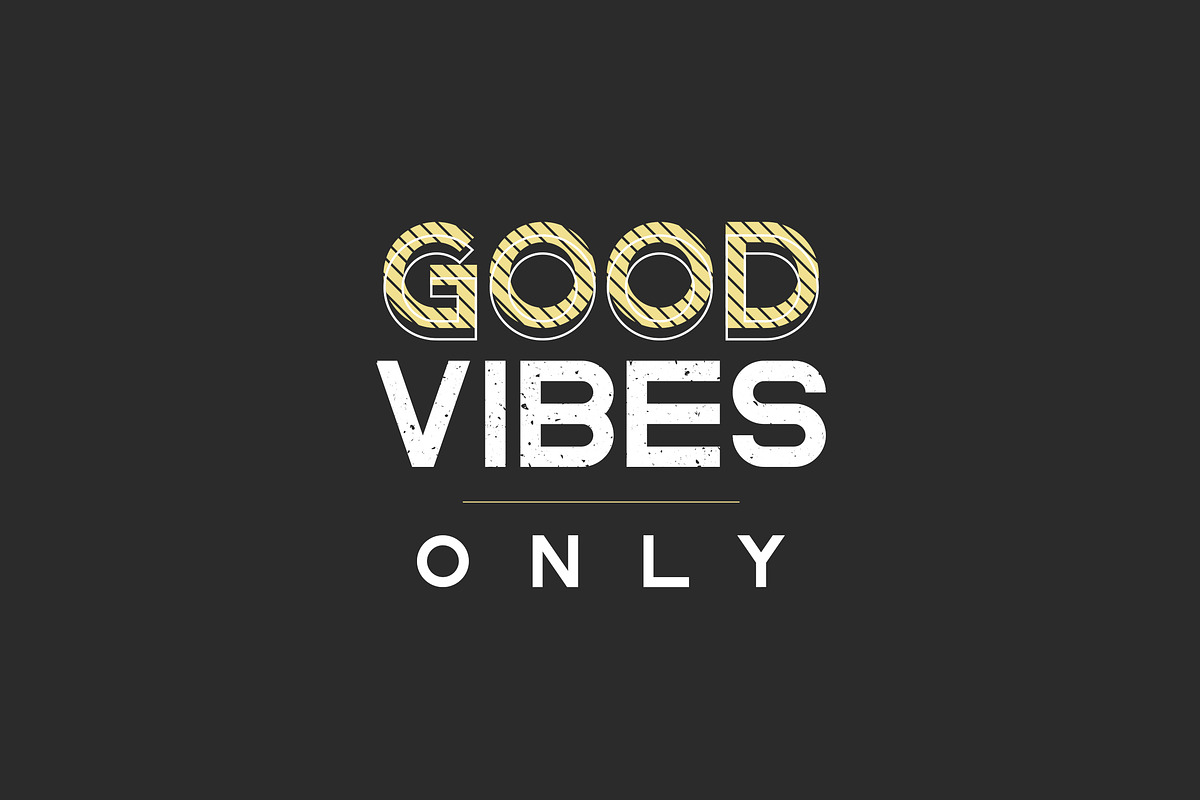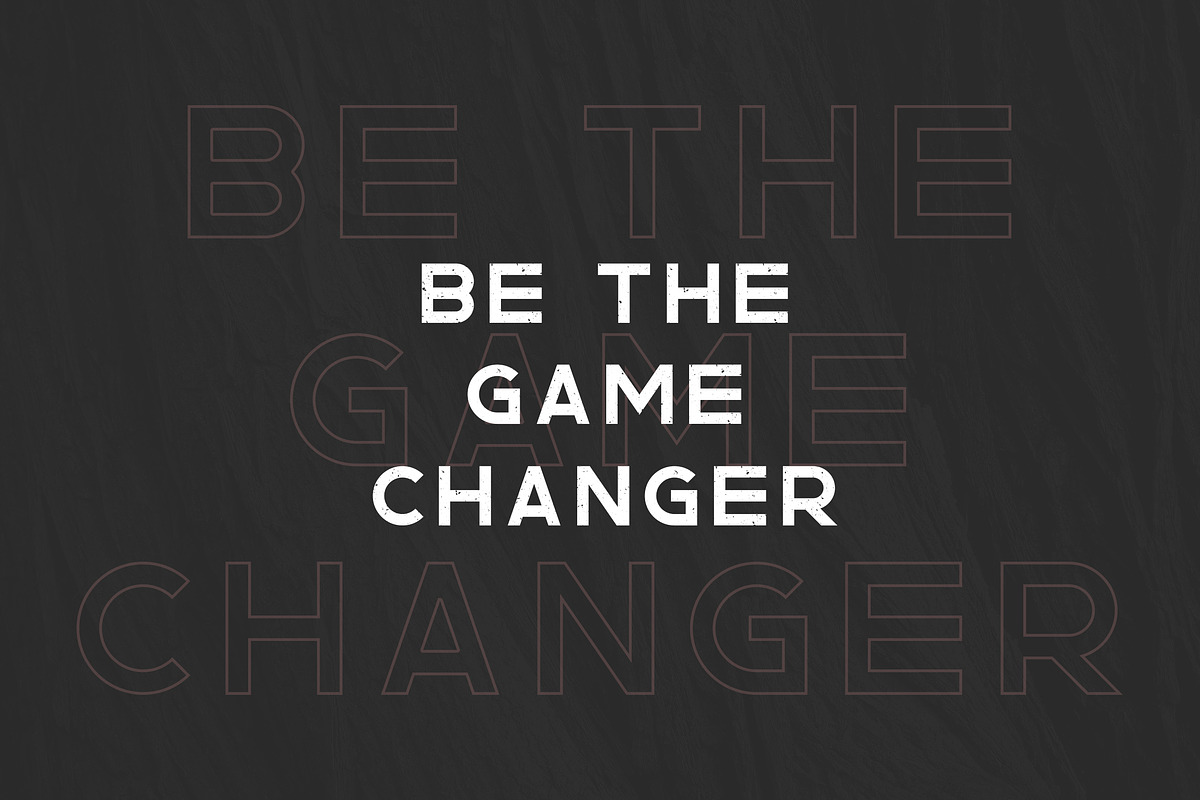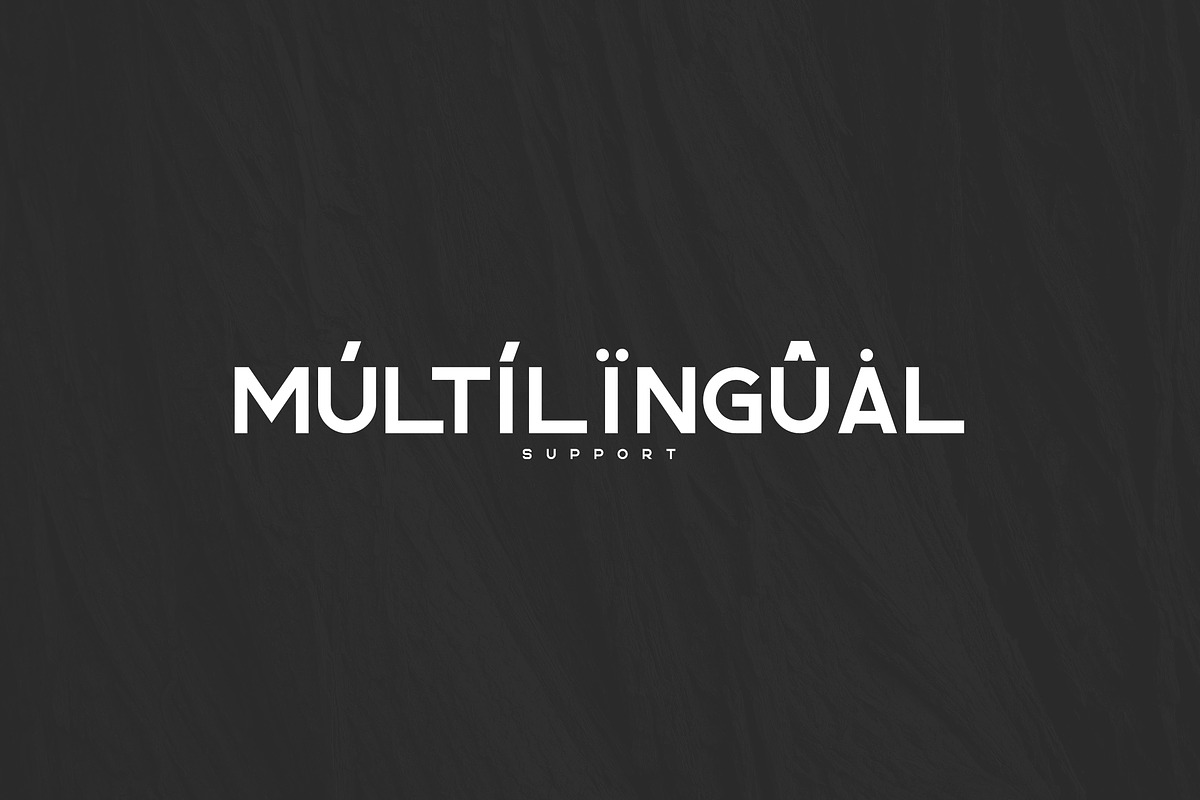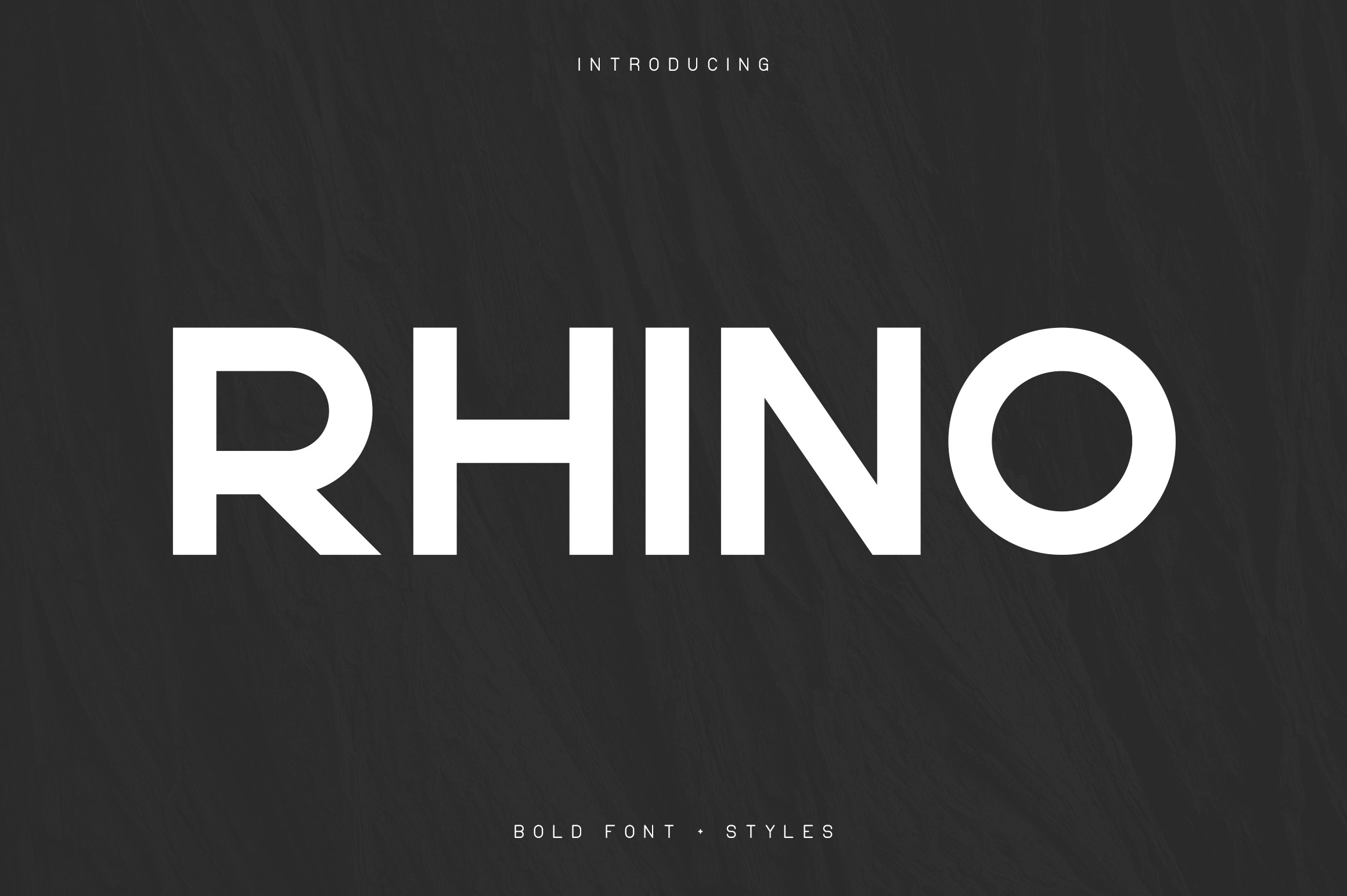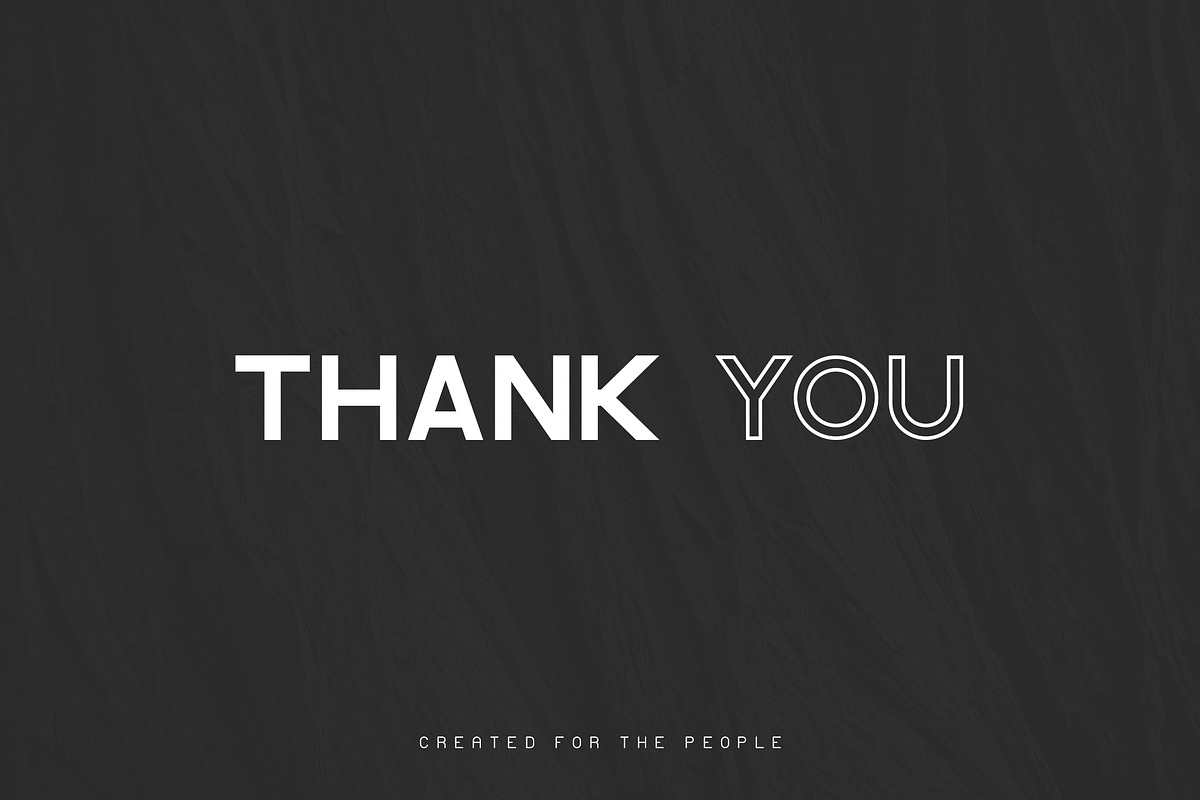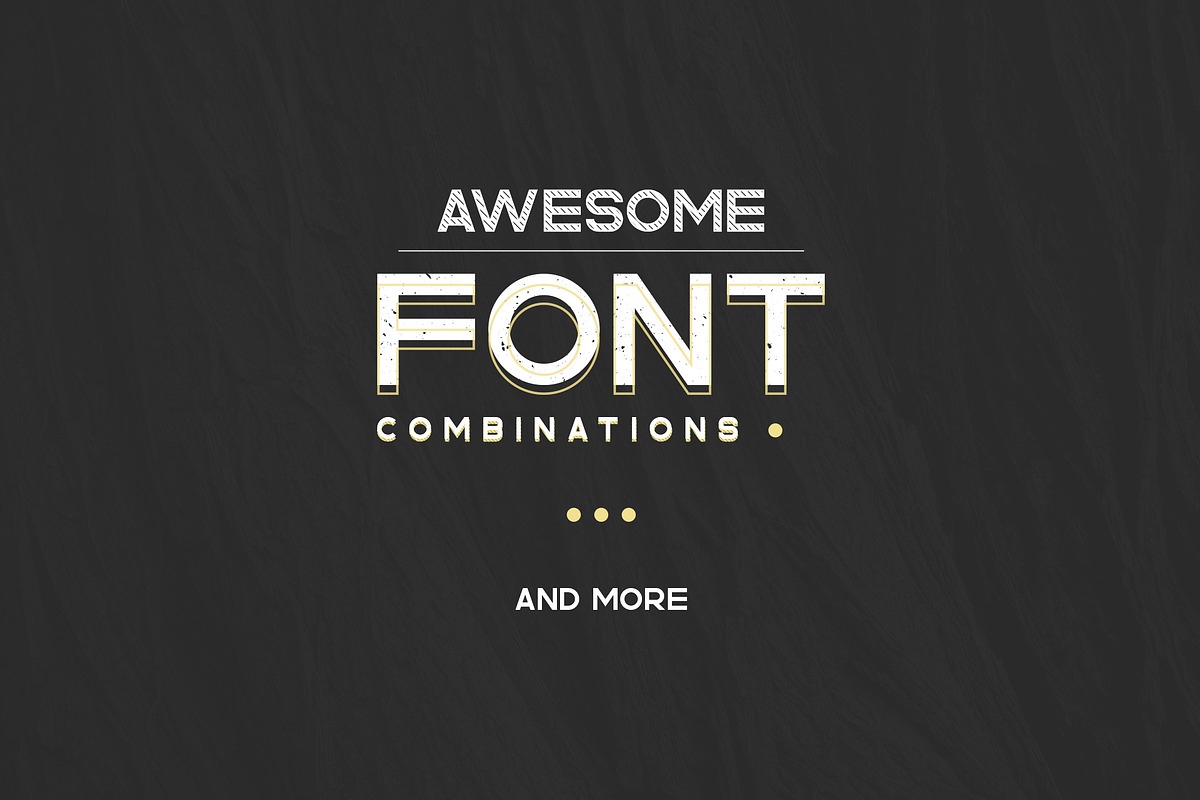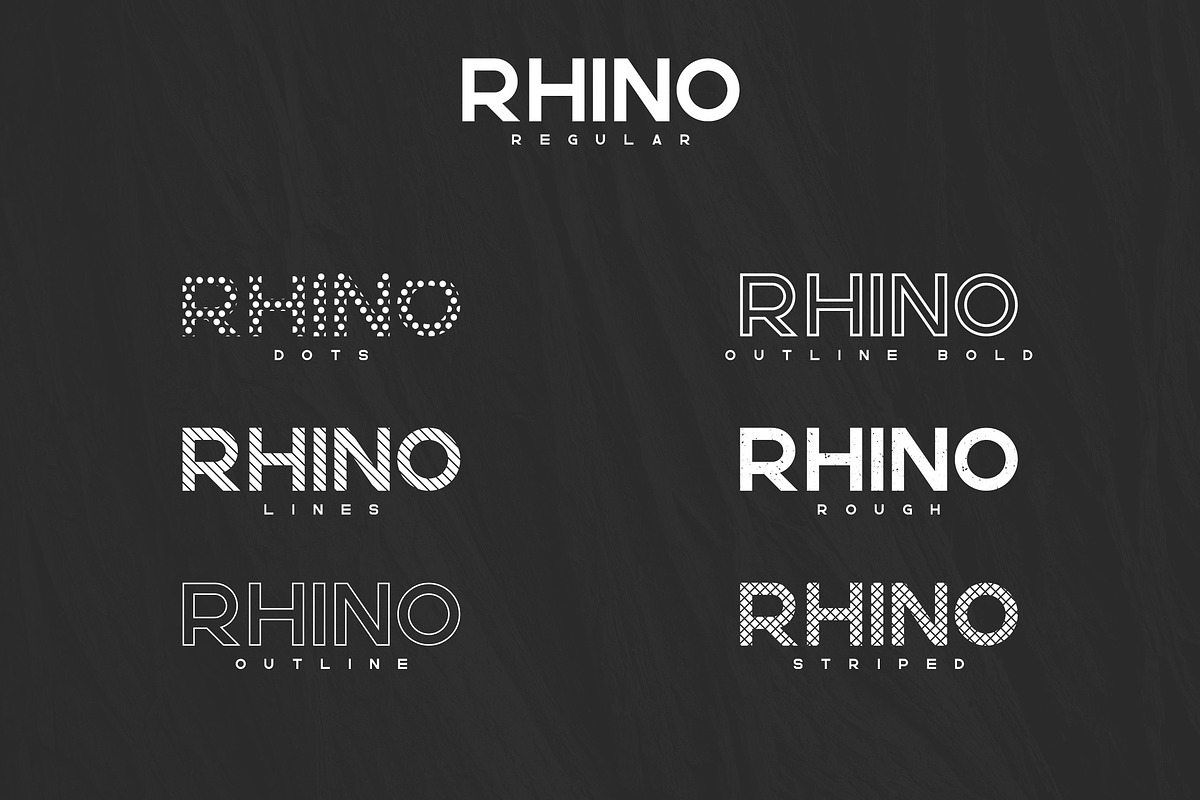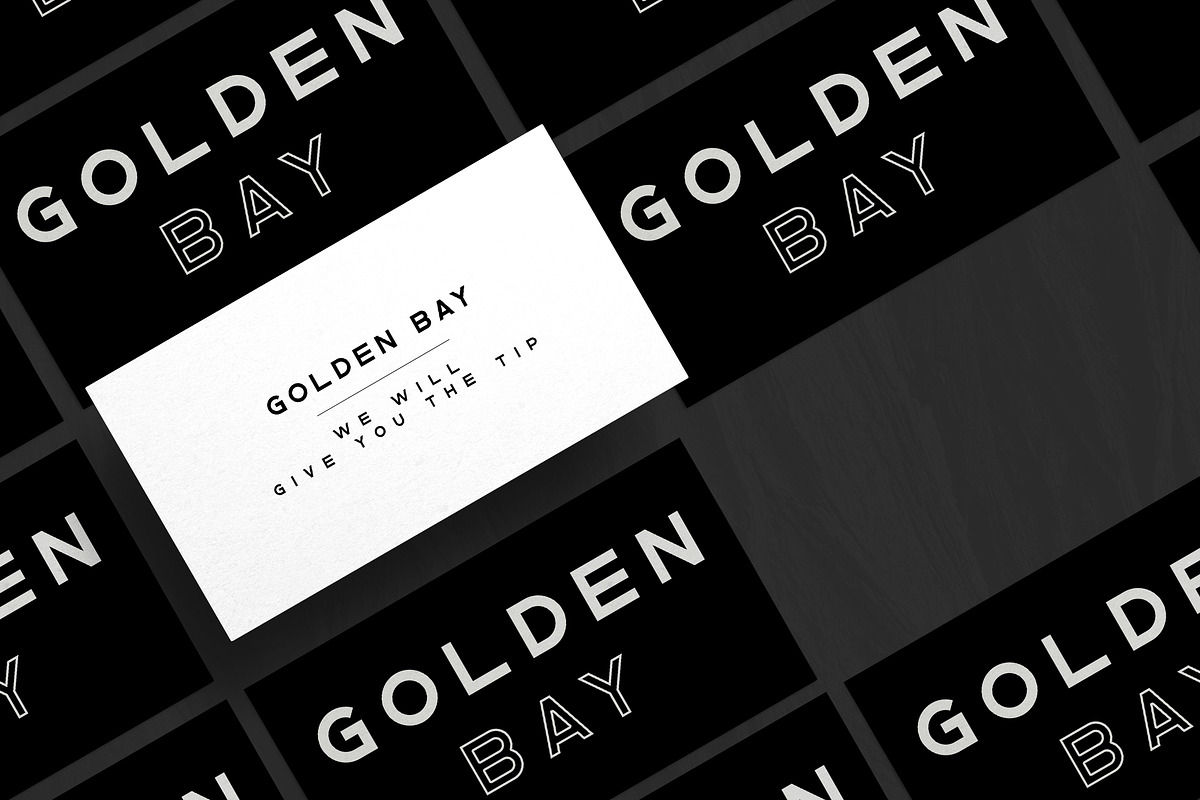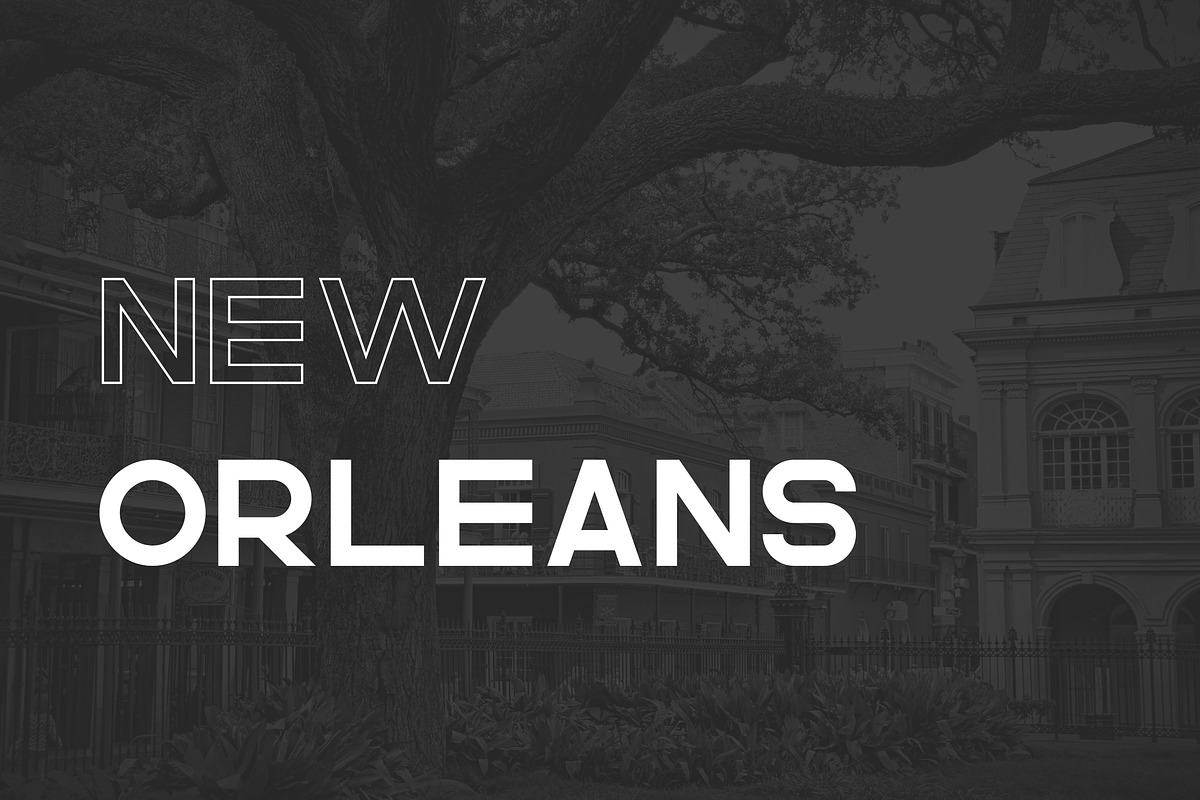
Rhino is clean, bold typeface with 7 fonts and multilingual support. It's a very versatile font that works great in large and small sizes.
Rhino is perfect for branding projects, home-ware designs, product packaging, magazine headers - or simply as a stylish text overlay to any background image.
- Uppercase,lowercase,numeral,punctuation & Symbol
- Dots
- Lines
- Outline
- Outline Bold
- Rough
- Striped